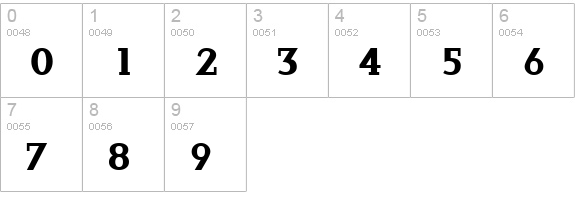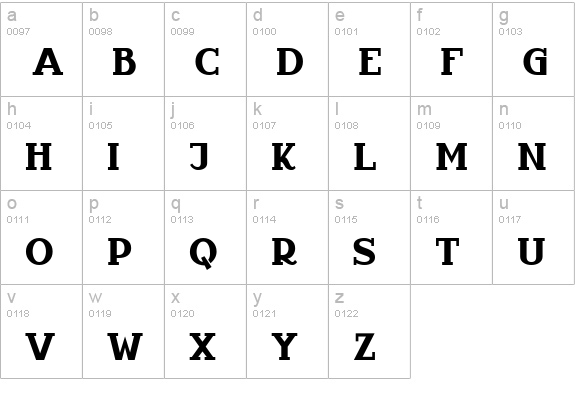
Infantyl Font Details
Introducing Infantyl, a captivating and versatile font that will awaken your creative endeavors and bring your designs to life! This unique typeface combines delicate curves with a touch of playfulness, making it perfect for a wide range of projects. Infantyl is designed with utmost attention to detail, ensuring each character is beautifully crafted to exude elegance and charm. Its smooth lines and balanced proportions create a harmonious flow, making it legible and easy on the eyes. One of the greatest features of Infantyl is that it is available for free! Yes, you heard it right. This stunning font can be freely downloaded at FontsMarket.com, ensuring that everyone has access to its beauty and potential. Whether you're a professional designer, a passionate enthusiast, or a student exploring the world of typography, Infantyl will be a valuable addition to your font collection. The versatility of Infantyl knows no bounds. From branding and logo designs to invitations, packaging, and social media graphics, this font is a perfect choice for any project that demands a touch of sophistication and originality. Its distinct personality will effortlessly elevate your designs and make them stand out from the crowd. Infantyl embraces both simplicity and complexity, allowing you to experiment and create unique combinations. Its wide range of weights and styles gives you the freedom to play with various typographic elements, ensuring that your designs reflect your vision perfectly. With Infantyl, there are no limits to your creativity. So why wait? Download this remarkable font for free at FontsMarket.com and let your imagination soar. Unleash the power of Infantyl and make your designs truly unforgettable.